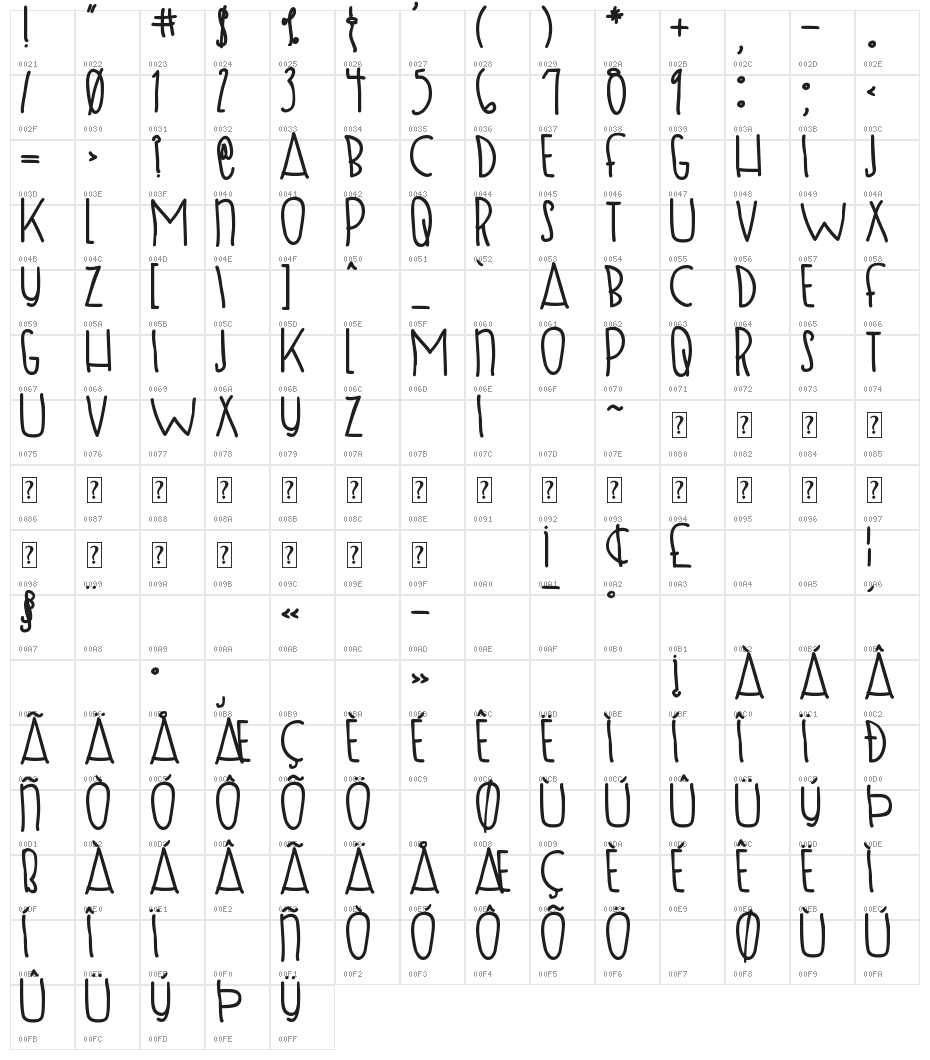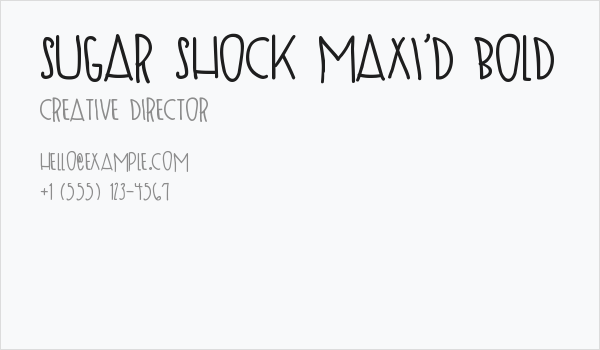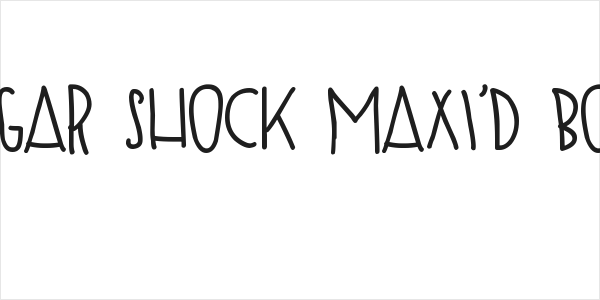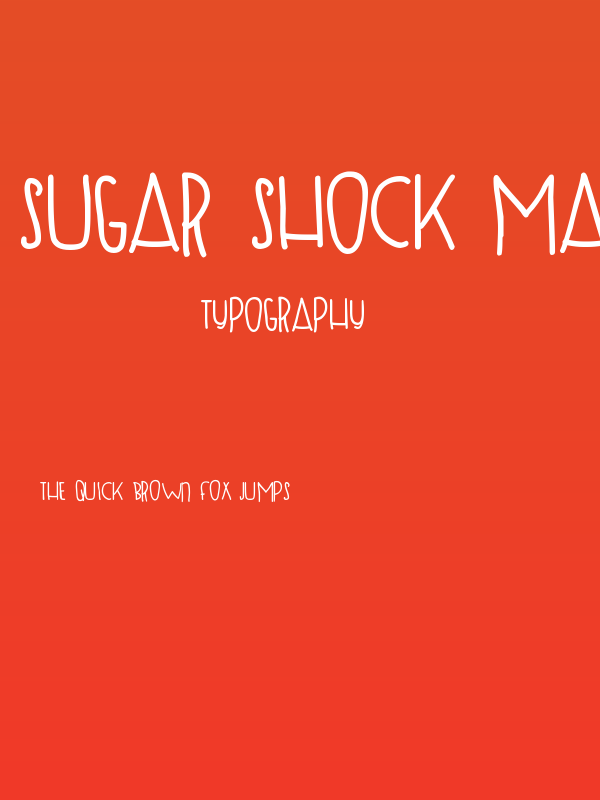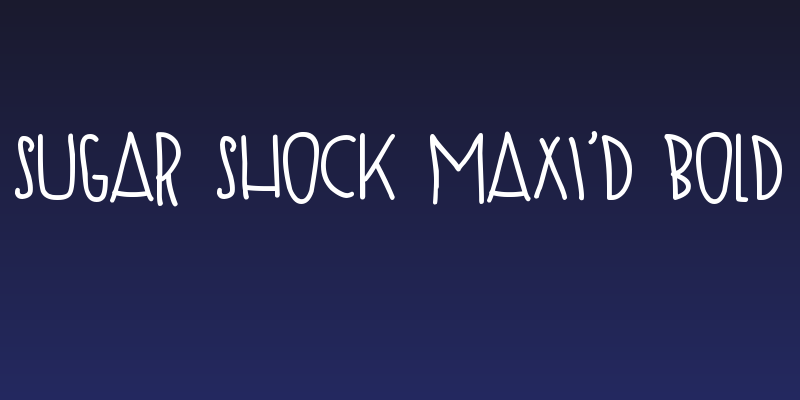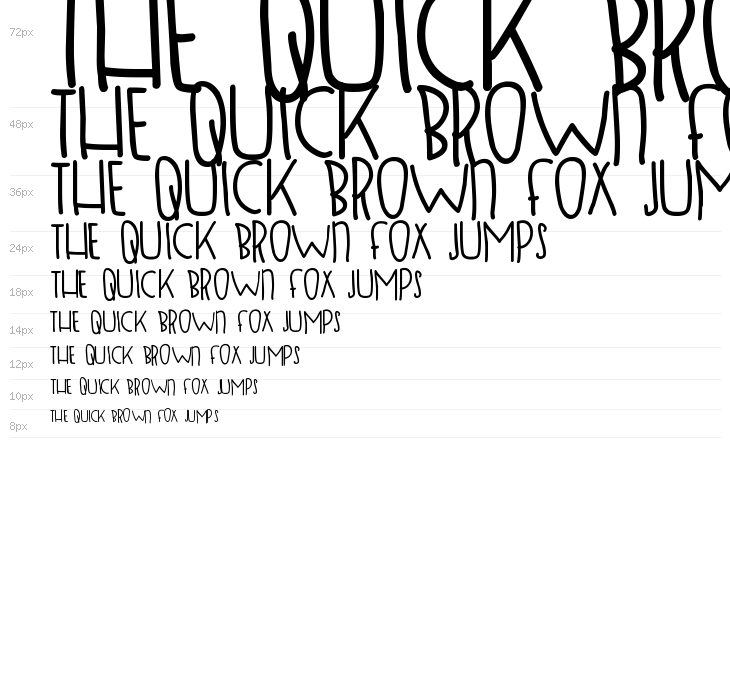
SUGAR SHOCK MAX'D Bold Font
SUGAR SHOCK MAX'D Bold Description
| Proposed Projects | Ideal for children's book covers, playful branding, party invitations, and creative posters. |